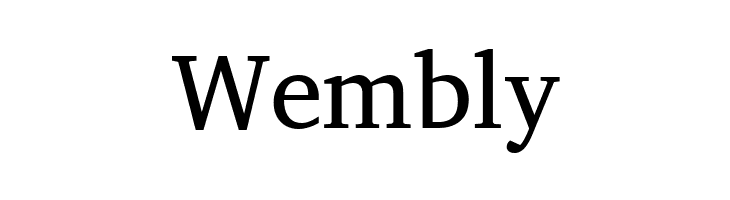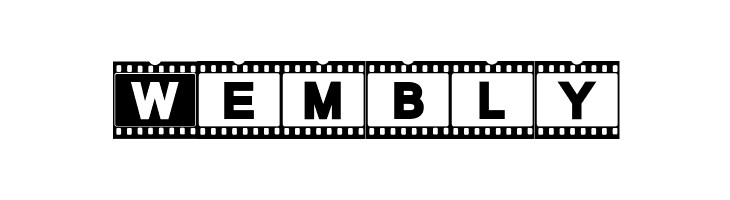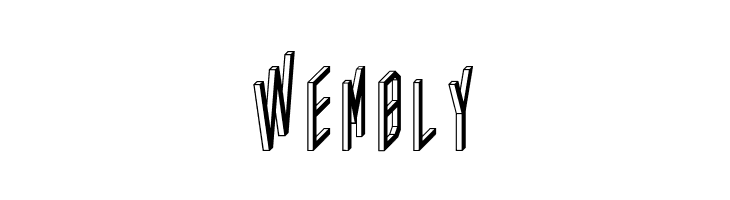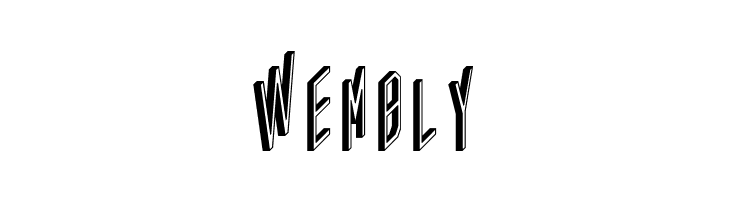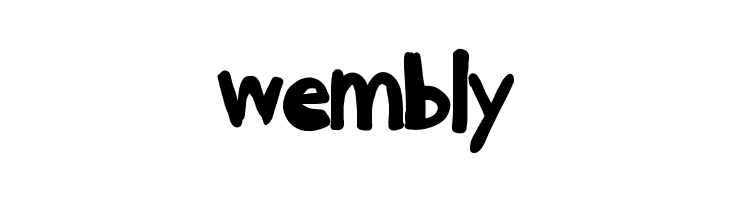
• Absinthe
A whimsical and artistic font with elongated, curvy lines and decorative elements.
• Absinthe FT Flourish
( Absinthe is an Art Nouveau inspired typeface. OFF SITE )
A decorative and elongated font with intricate flourishes and a vintage-modern appeal.
• Absinthe FT Italic
( Absinthe is an Art Nouveau inspired typeface. OFF SITE )
An elegant, italicized font with high contrast and a vintage flair.
• Absinthe FT Regular
( Absinthe is an Art Nouveau inspired typeface. OFF SITE )
A decorative font with elongated, narrow letterforms and art nouveau influences.
• Abuget
A dynamic, cursive script font with medium contrast and expressive strokes.
• Abuse
A playful, hand-drawn style font with bold, irregular strokes.
• Abyssinica SIL
A classic serif typeface with elegant serifs and a traditional design.
• AC Big Serif One
A bold and elegant serif typeface with a classic yet modern appearance.
• AC Big Serif Two
A classic serif font with high contrast and elegant serifs.
• AC Brodie
A modern, geometric font with clean lines and rounded edges.
• AC Filmstrip
A bold, decorative font styled like a filmstrip, perfect for cinematic themes.
• AC Framed
A bold, geometric font with a three-dimensional shadow effect.
• AC Framed Inverted
A bold, three-dimensional font with a shadow effect and geometric design.
• AC Framed Outline
A 3D outline font with a geometric, architectural style.
• AC Mountain
A modern, geometric font with art deco influences, ideal for stylish and sophisticated designs.
• AC Mountain Inverted